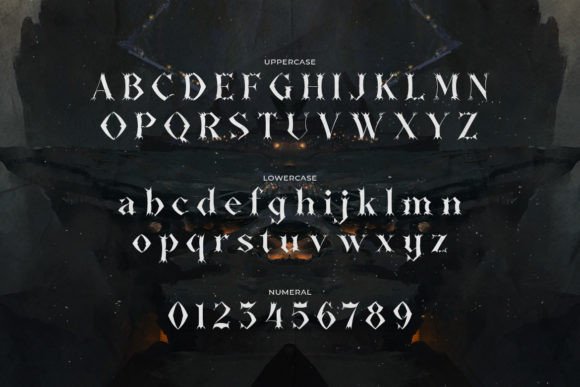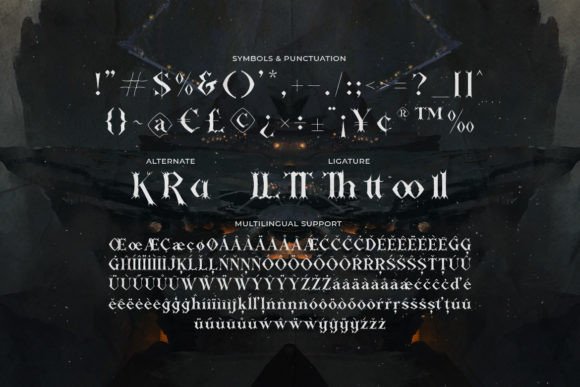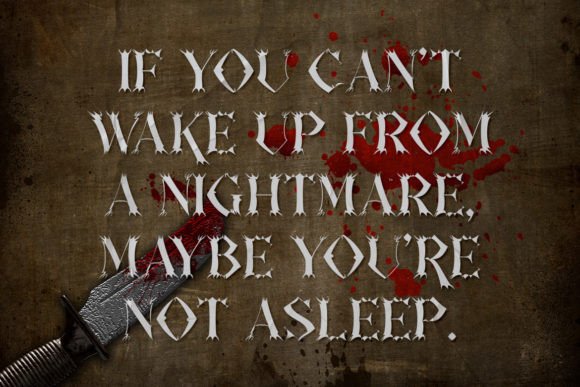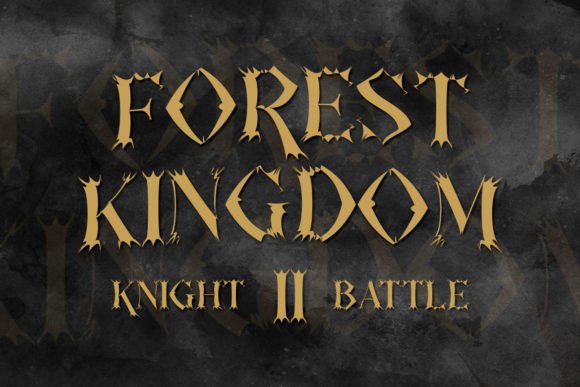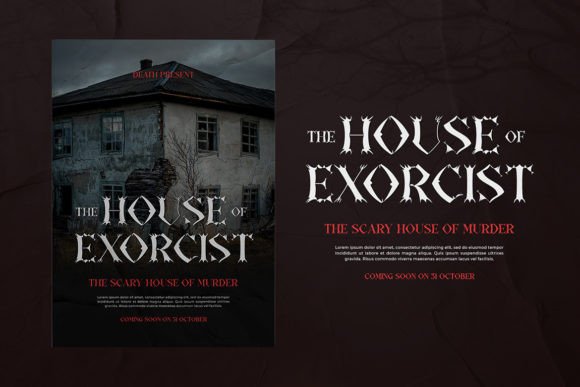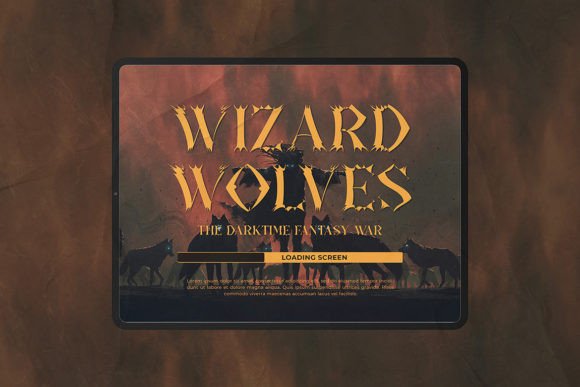
Introduction to Knightes Font
Enter the realm of darkness with “Knightes” – a horror display font that will send chills down your spine.
With its menacing and Gothic letterforms, “Knightes” embodies the eerie and macabre Each letter is meticulously crafted to capture the essence of horror, making it the perfect choice for haunted designs, horror movie titles, or any project that requires a touch of fright.
Key Features of Knightes Font